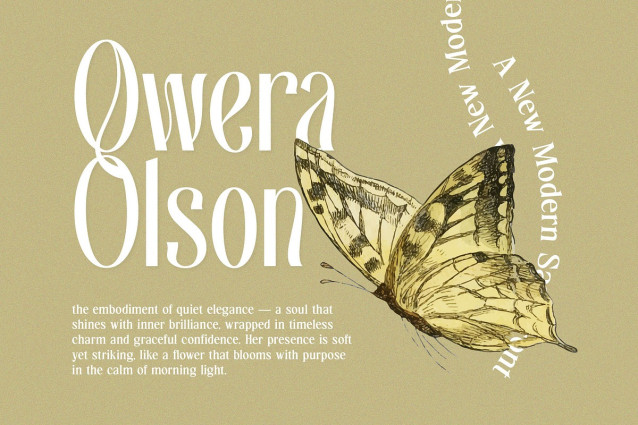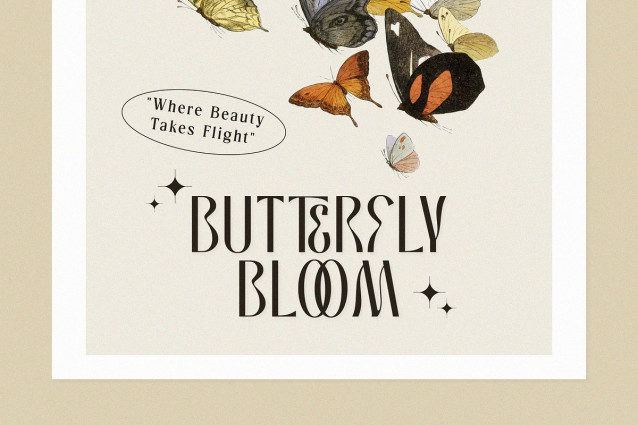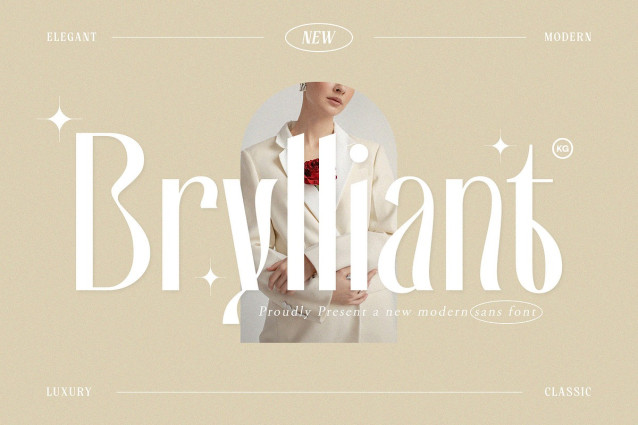
KG Brylliant Font
KG Brylliant Font, a refined and versatile modern sans serif font that blends classic elegance with contemporary charm. With its tall letterforms, graceful curves, and unique stylistic details, Brylliant is designed to elevate your creative projects with a touch of luxury and sophistication.
Perfectly suited for fashion editorials, branding, packaging, magazine layouts, wedding stationery, and high-end logo designs, Brylliant brings timeless beauty to modern typography. Each letterform is crafted with precision to create a balance of style and readability — making it ideal for both display and editorial use.